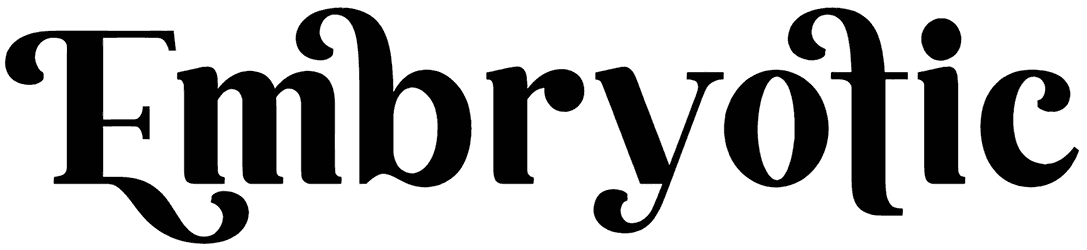
Embryotic Font
To get results like the preview just type E.4mb.2ryot.3ic
Bonjour! Embryotic is a mystical display font. This font was carefully crafted and inspired by world top fashion brand. In general, it creates a luxurious and elegant look in design.
Super Easy to Use alternates – It’s OpenType support but you can easly call alternates character using special combination like A.2 B.4 h.3 etc so you dont need special software